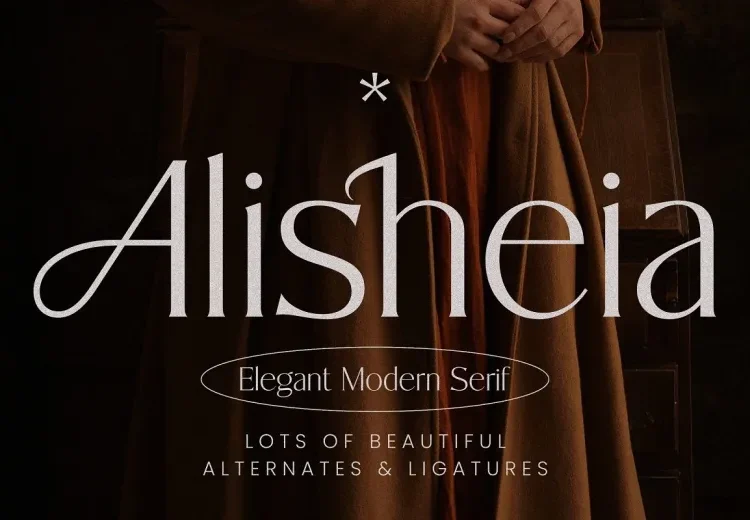
Alisheia Font
Alisheia is an elegant, contemporary serif font that perfectly complements luxurious design projects. With its timeless and classic design, Alisheia exudes style and sophistication, making it an excellent choice for branding tools such as invitations, logos, and mastheads. The font’s refined character and variety of options, including binders, provide designers with the flexibility to create original and unique logos or web headers with ease.
Whether you’re working on high-end branding, elegant invitations, or stylish editorial projects, Alisheia adds a touch of luxury and professionalism to any creation. Its well-crafted design ensures that every project not only looks exquisite but also leaves a lasting impression.